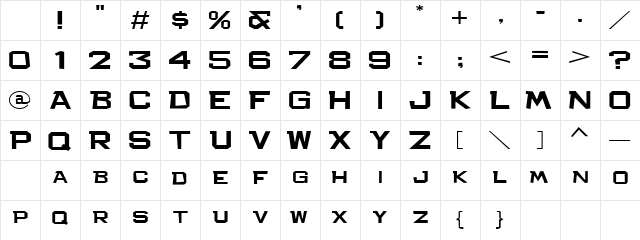
Complete Bachelor Pad Expended JL Regular glyph index. Displaying only characters natively supported by Bachelor Pad Expended JL Regular font.
Bachelor Pad Expended JL is a composed and adaptable typeface that performs quietly and consistently across a wide range of design contexts.